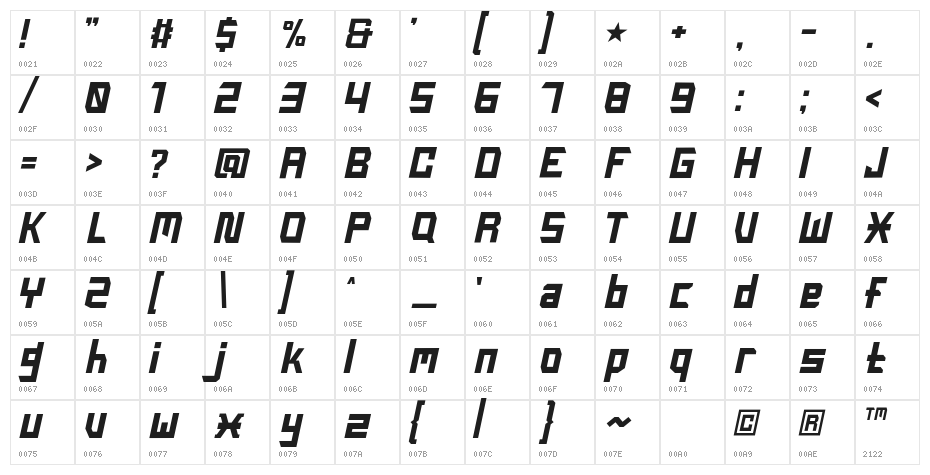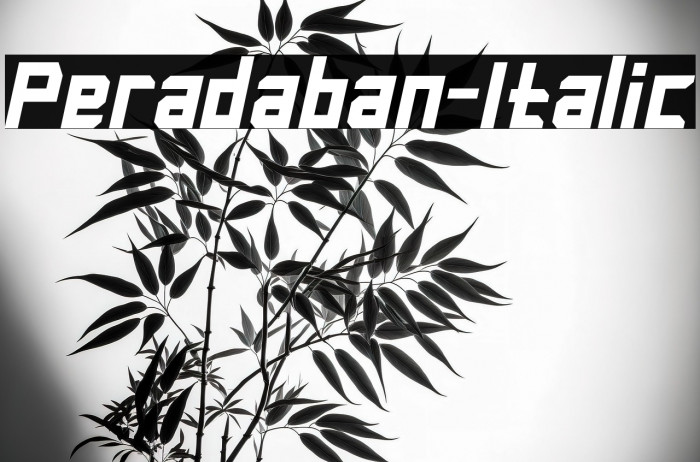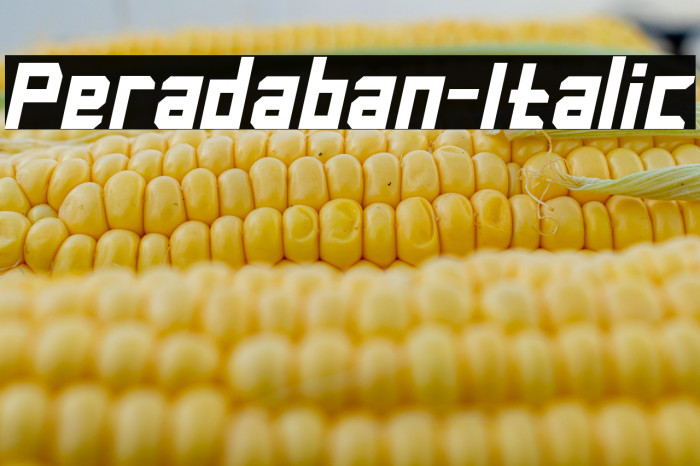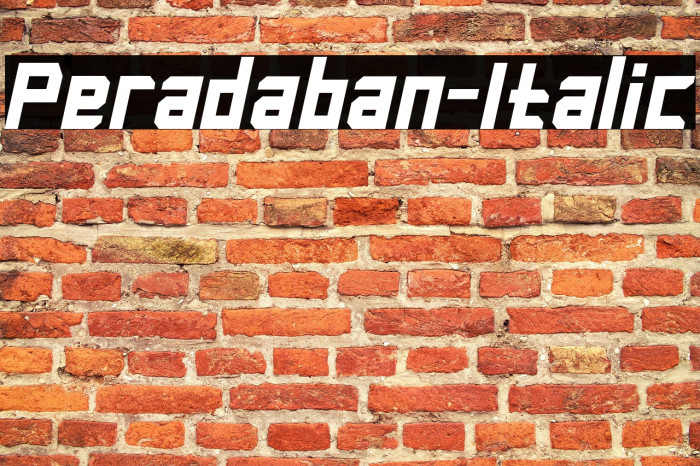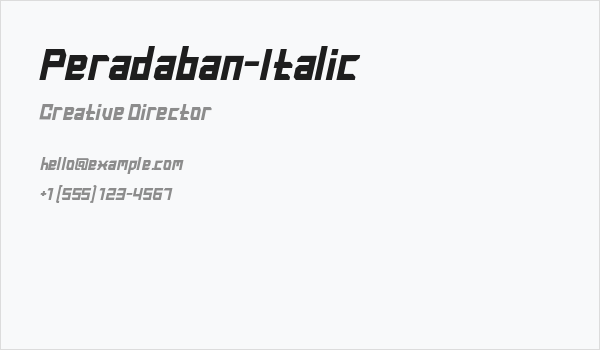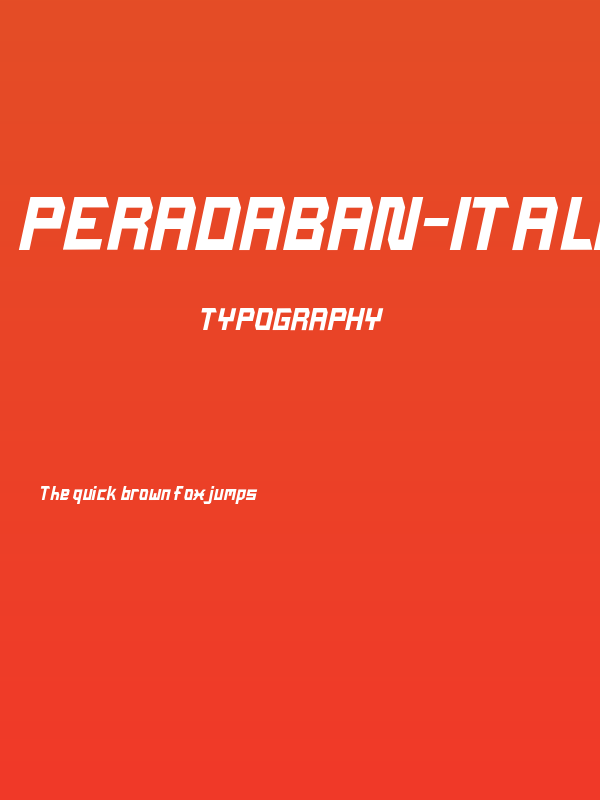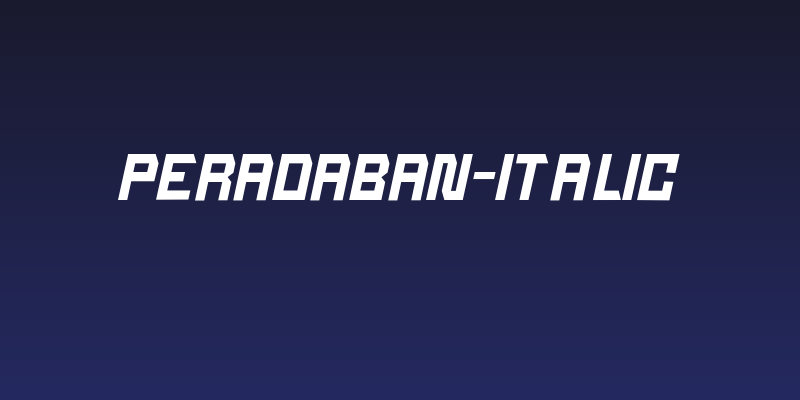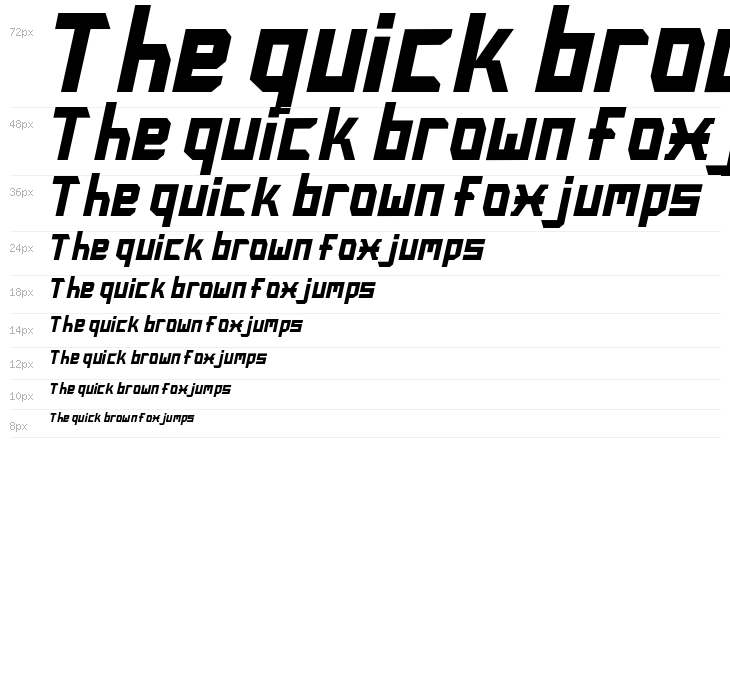
Peradaban-Italic Font
Peradaban-Italic Description
This font features a bold, italicized style with a modern, angular design. The characters are sharply defined with a consistent slant, giving a sense of motion and dynamism. The uppercase and lowercase letters maintain a uniform width, creating a cohesive look across the alphabet. Numerals and special characters are designed with the same angular precision, ensuring readability and visual impact. The font's geometric nature makes it suitable for projects that require a contemporary and edgy appearance.
| Proposed Projects | Ideal for branding, sports team logos, posters, and digital media that require a dynamic and modern aesthetic. |